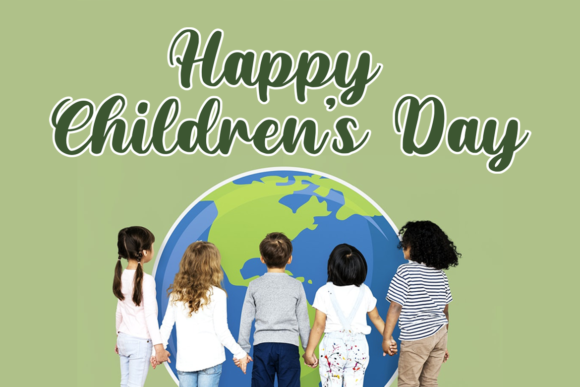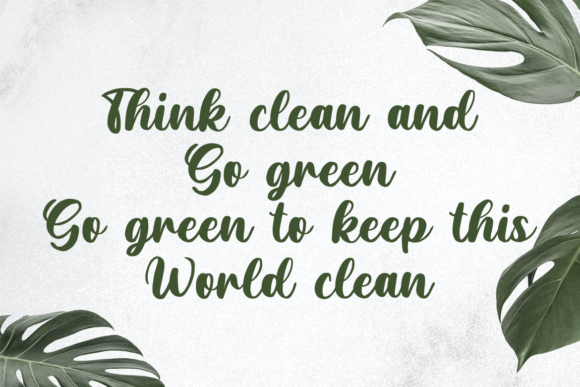
About Just Love Font
Just Love is a cute and delicate calligraphy font. It will add an incredibly joyful touch to your designs. Add this beautiful and bouncy font to each of your creative ideas and notice how it makes them stand out!